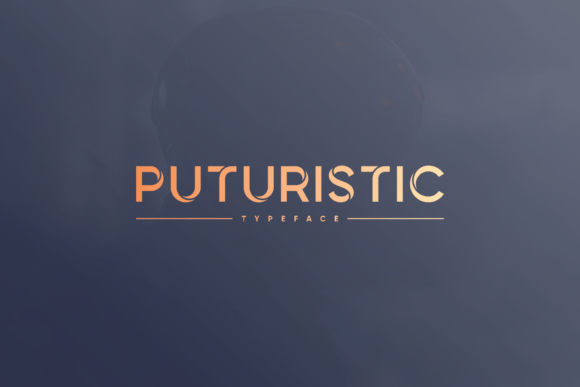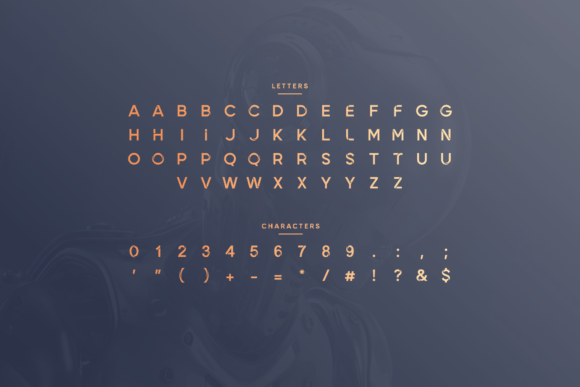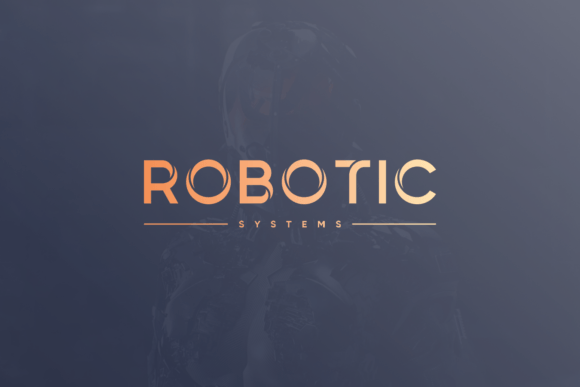
Introduction to Qucros Font
Have you ever stared at a blank canvas, wondering where to start your next creative project? The blank page can be intimidating, but what if you had the perfect design resource to spark your imagination? That’s where Qucros Font comes in – a modern, minimalistic display font that’s sure to elevate your creations to the next level.
| 👤 Author | Letterna |
Whether you’re a seasoned designer or just starting out, Qucros Font is a valuable addition to your library. Its high-quality design makes it perfect for a wide range of applications, from logos and graphics to presentations and editorials. And the best part? It’s available for free download, making it an accessible design resource for anyone looking to take their creative project to the next level.
- High-quality, professional design ideal for creative projects, available for free download.
- Unique, elegant design with a transparent background, perfect for use in various design contexts.
- Features a clean, modern aesthetic, making it suitable for a wide range of design applications, from logos to typography.
- Supports various font sizes, from small text to large headings, making it a versatile design resource.
Honest Review: Qucros Font
I recently had the chance to experiment with the Qucros Font, a free download that’s quickly become a design resource I appreciate. The Qucros Font offers a high quality, elegant aesthetic that can add a touch of sophistication to any creative project.
- ✨ Unique character set: The Qucros Font features a distinctive set of characters that can add a unique flair to your designs.
- ✨ Transparent background: The font’s transparent background makes it easy to layer over other elements in your design.
While I appreciate the Qucros Font’s design, there are a few limitations to consider. For example:
- ⚠️ Limited language support: The Qucros Font only supports a limited number of languages, which may be a problem for designers working on projects that require multilingual support.
- ⚠️ No bold or italic styles: The font only comes in regular weight, which may limit its versatility in certain design situations.
Overall, I think the Qucros Font is a solid addition to any designer’s toolkit. Its unique design and transparent background make it a great choice for creative projects where you want to add a touch of elegance. While it may have some limitations, I think it’s definitely worth checking out if you’re looking for a high-quality, free font download.
For the most out of the Qucros Font, experiment with different font sizes, colors, and styles. Use it for headings, titles, or body text to create a consistent design aesthetic. Common use cases include logo design, infographics, and social media graphics.